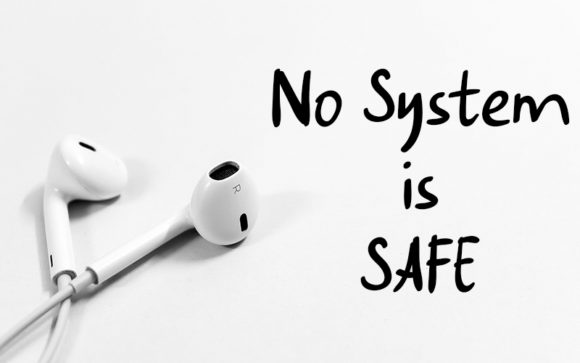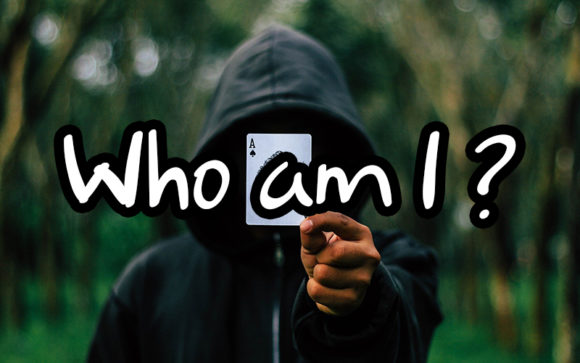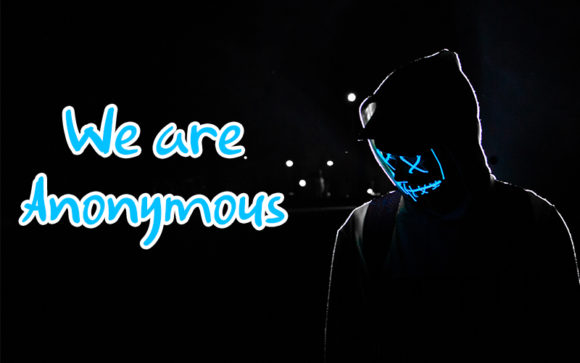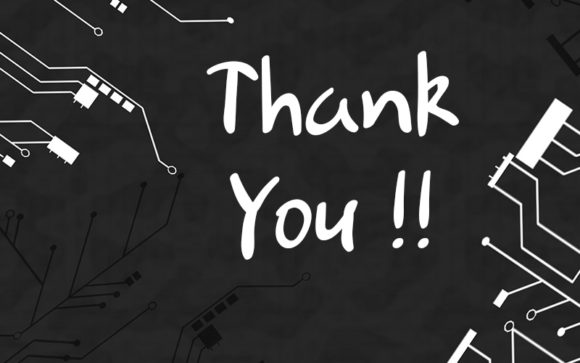
System Shutted Down Font
About System Shutted Down Font
System Shutted Down is a great handwritten font. Clean and a little bit quirky, this font is the perfect fit for all of your logos, branding, social media, and crafty DIY projects.